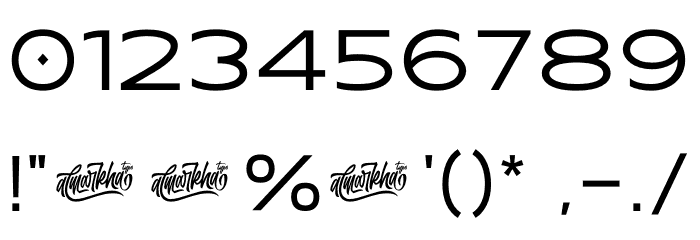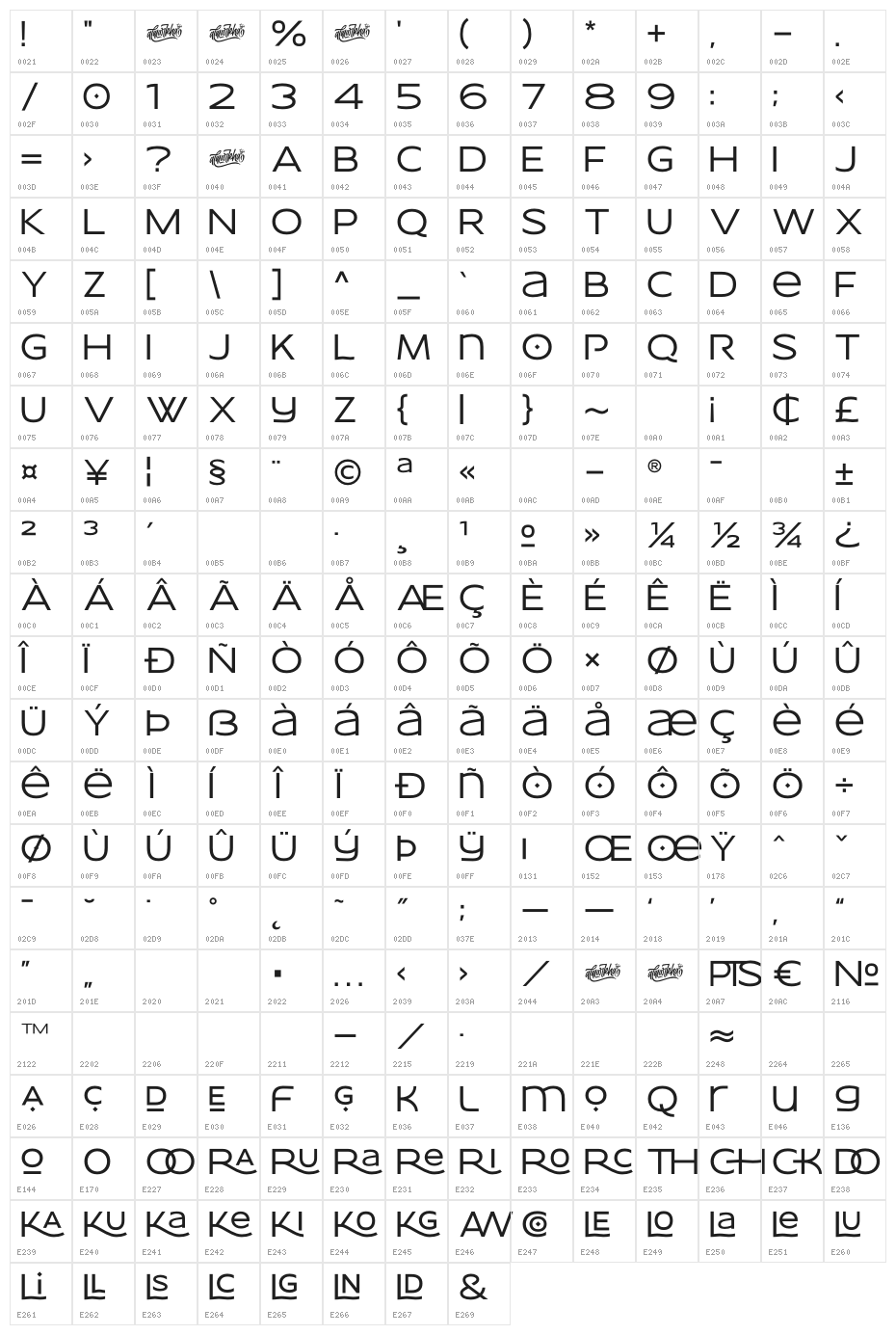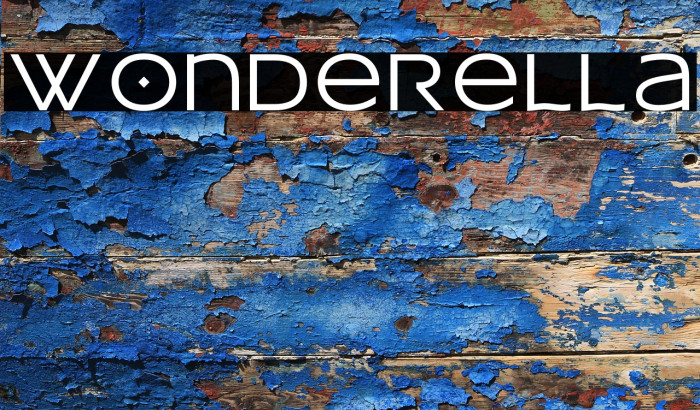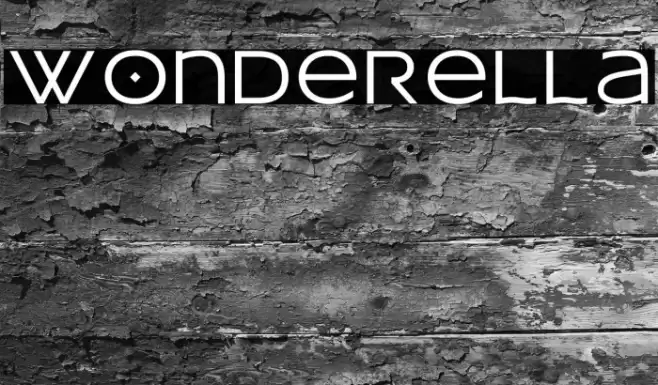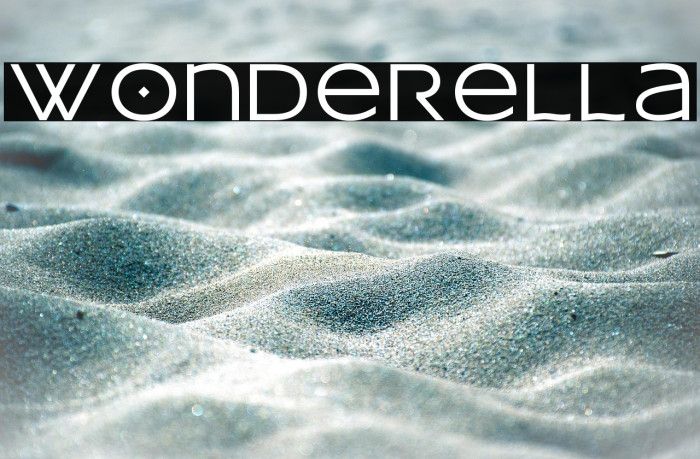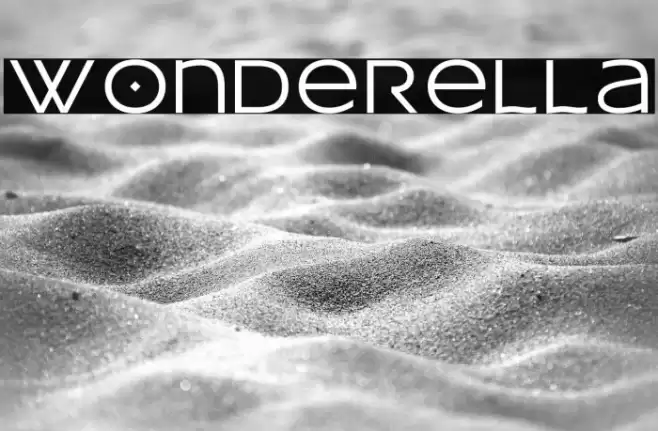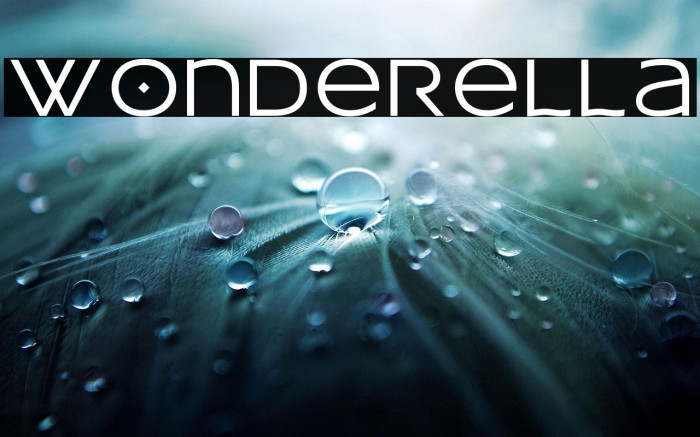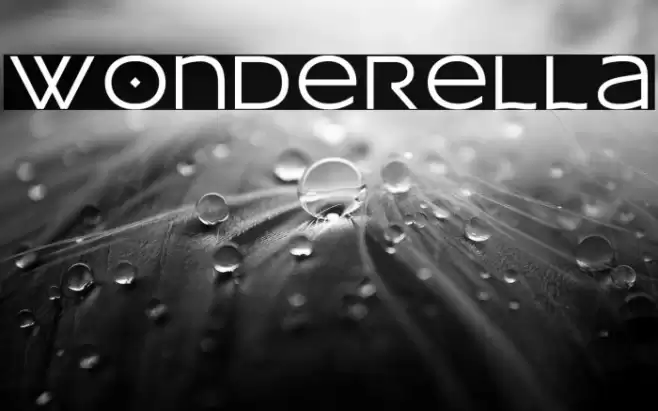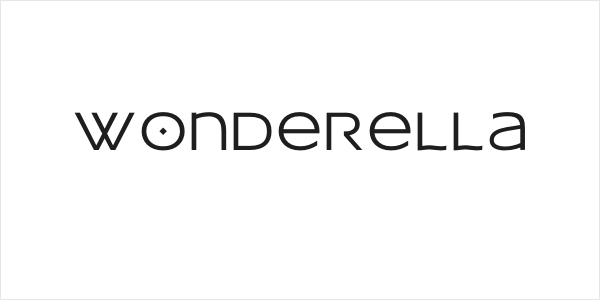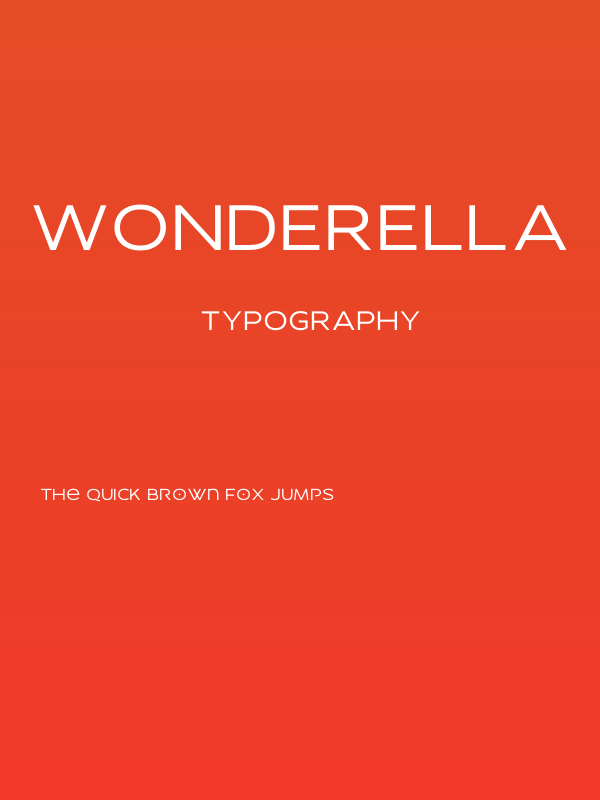
wonderella Font
wonderella Description
This font features a clean, modern design with a geometric structure. The uppercase letters are bold and uniform, while the lowercase letters maintain a consistent style with slight variations in stroke width. The numerals are clear and easily distinguishable, contributing to the font's overall readability. Special characters are included, adding versatility for various design needs. The font's simplicity and elegance make it suitable for a wide range of applications, from digital to print media.